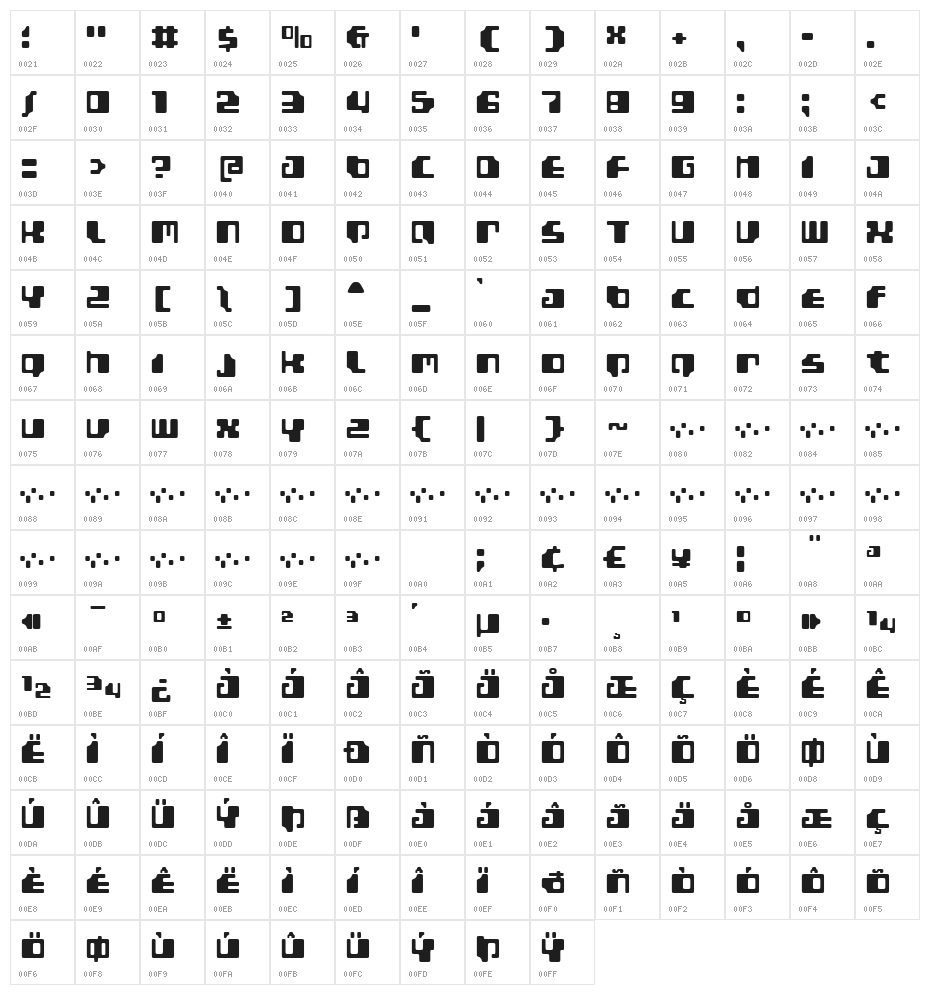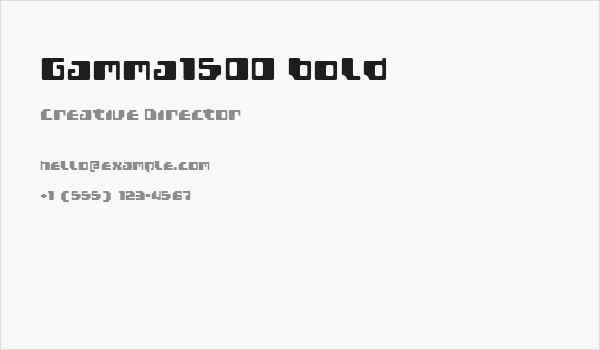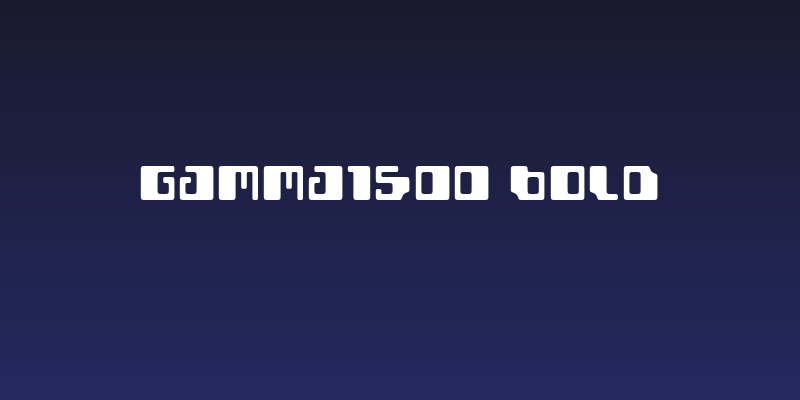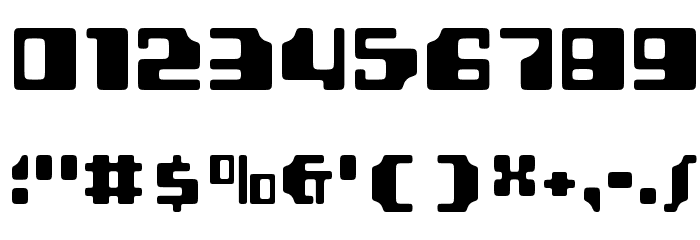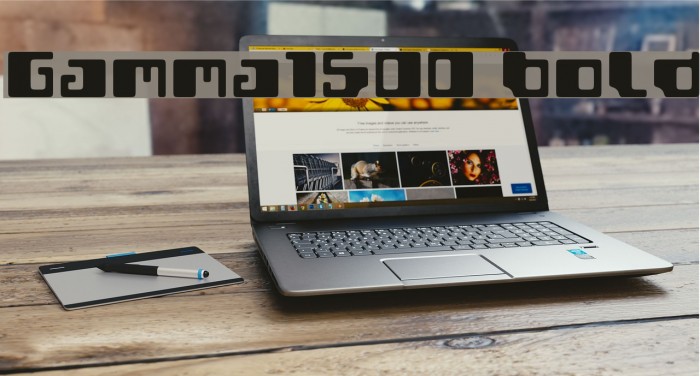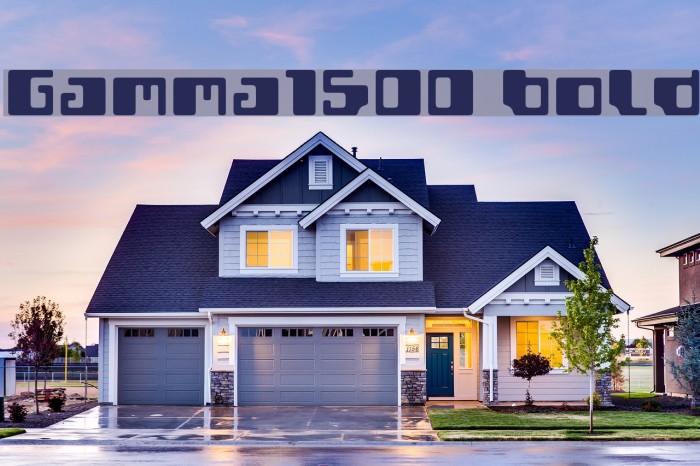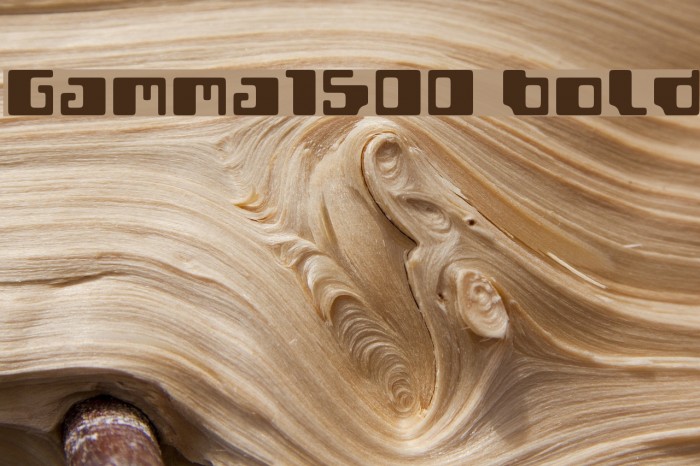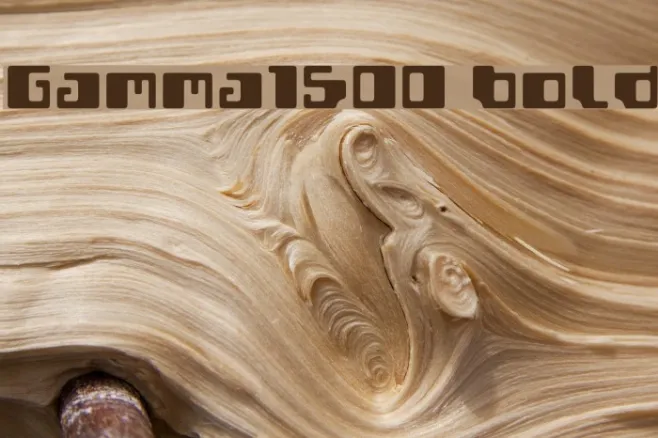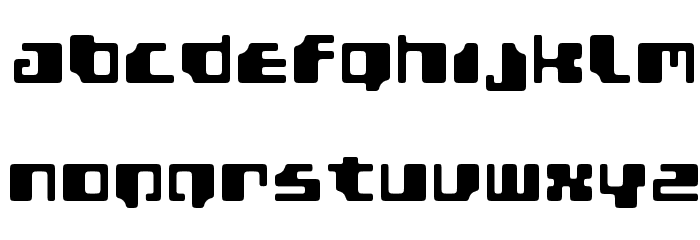
Gamma1500 Bold Font
Gamma1500 Bold Description
This bold, geometric font features a distinct blocky style with rounded edges, creating a futuristic and tech-inspired appearance. The characters are uniformly thick, contributing to a strong visual impact. The uppercase and lowercase letters maintain a consistent height, enhancing readability and uniformity. Numbers and special characters follow the same design principles, ensuring a cohesive look across all elements. The font's unique style makes it suitable for projects that require a modern and bold statement.
| Proposed Projects | Ideal for technology branding, video game titles, sci-fi posters, and modern advertising. |